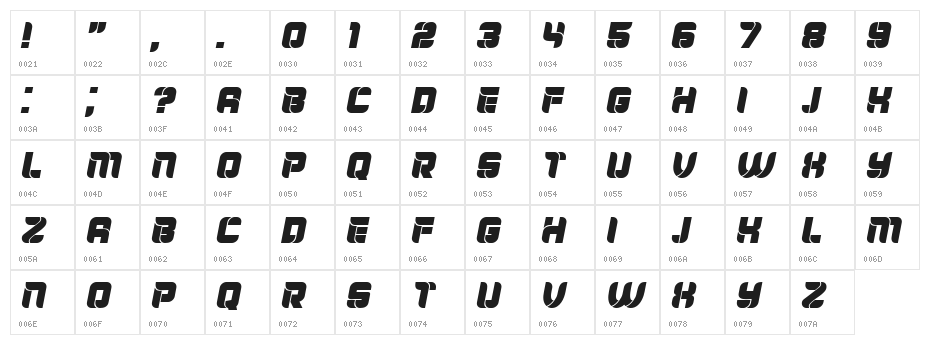
Mayor Italic Font
Mayor Italic Description
This font features a bold and dynamic design with a distinctly modern flair. The characters are italicized, giving a sense of movement and energy. Each letter is crafted with a thick, consistent stroke, creating a strong visual impact. The font's geometric shapes and sharp angles contribute to its contemporary style, making it stand out in any design. The numbers and special characters maintain the same boldness and angularity, ensuring a cohesive look across all elements. This typeface is ideal for projects that require a striking and assertive visual presence.
| Proposed Projects | Ideal for branding, advertising, sports team logos, and dynamic poster designs. |